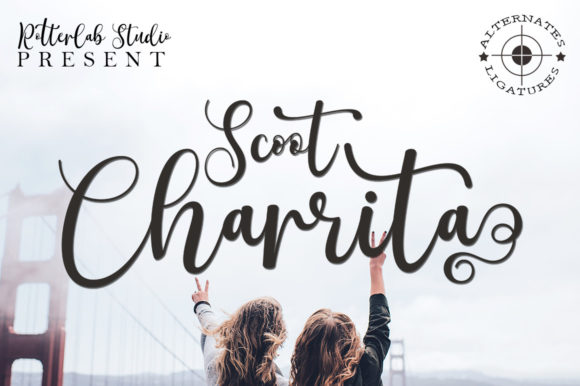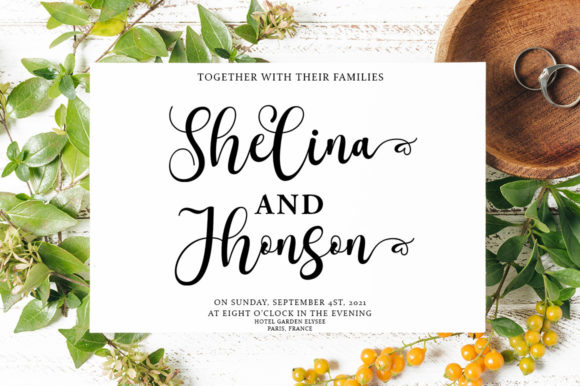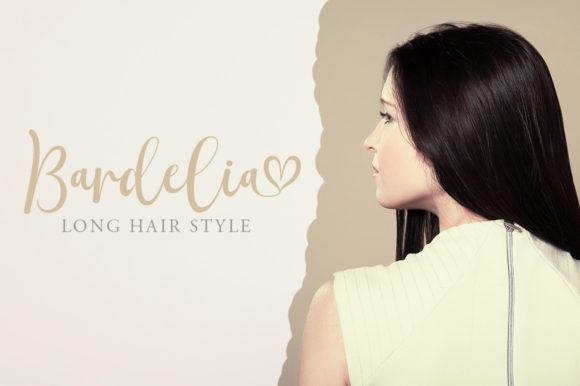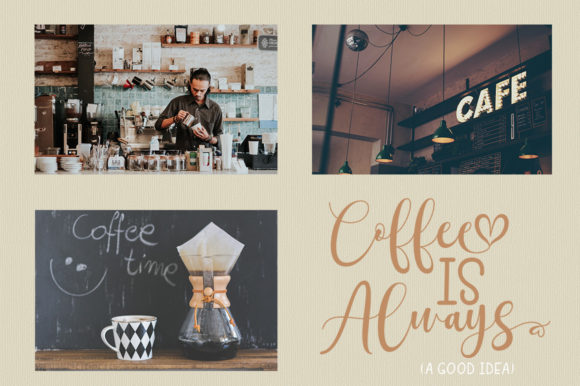
About Scoot Charrita Font
Scoot Charrita is a lovely and delicate script font that exudes elegance and class. This font was particularly crafted for those who need a beautiful and refreshing look to their designs. Scoot Charrita is PUA encoded which means you can access all of the glyphs and swashes with ease!